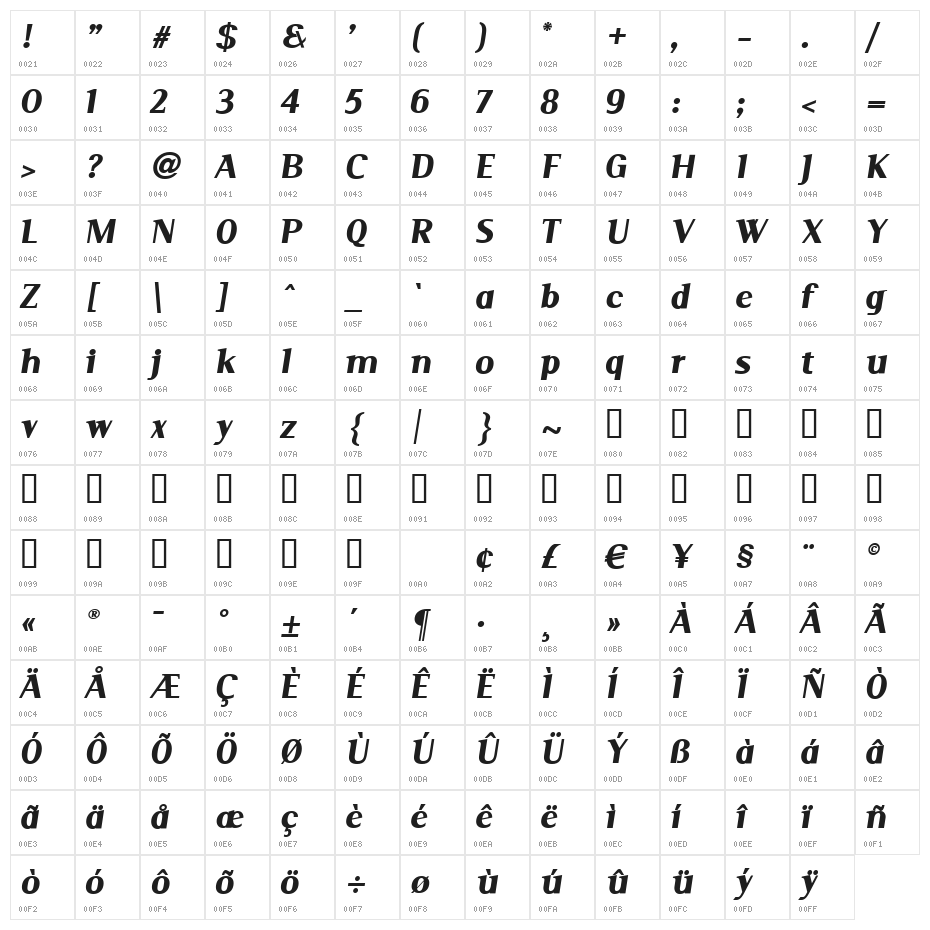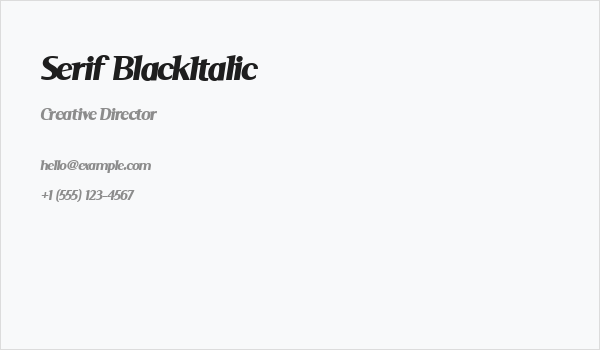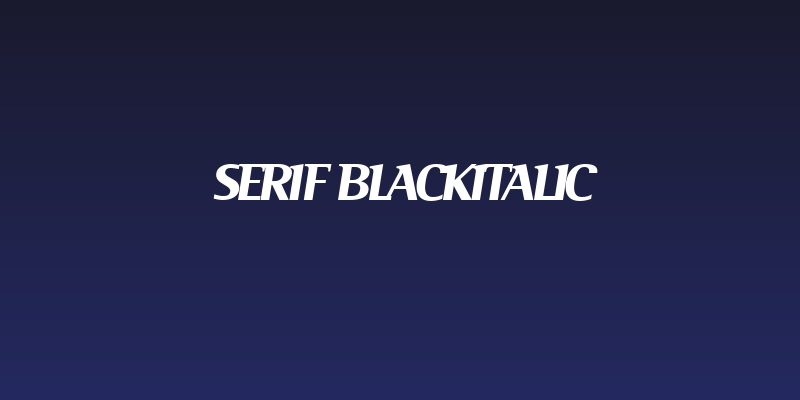
Serif BlackItalic Font
Serif BlackItalic Description
This font exhibits a bold and italicized serif style, characterized by its strong, thick strokes and elegant curves. The uppercase letters are prominent and commanding, while the lowercase letters maintain a consistent flow with a slight slant, enhancing readability. The numerals are robust, matching the overall boldness of the alphabetic characters. Special characters are designed with the same attention to detail, ensuring uniformity across the font. The italicization adds a dynamic and sophisticated touch, making it suitable for various formal and creative applications.
| Use Case | Headlines, Logos, Editorials |
| Proposed Projects | Ideal for book covers, formal invitations, branding materials, and editorial headlines. |